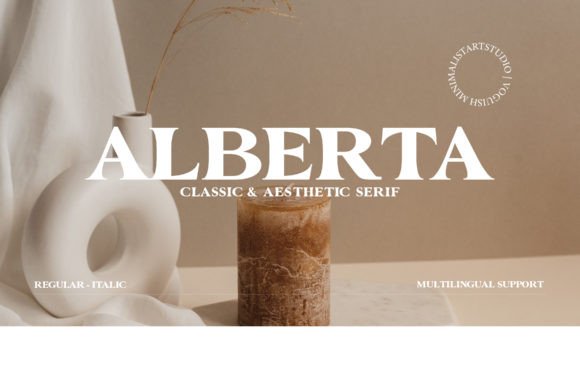
Prepare to be captivated by Alberta, the serif typeface that exudes refinement, chic, and style. This exquisite font family was meticulously crafted by Minimalistartstudio, the masters of typography. With a character set that dances gracefully across the page, Alberta is the perfect dance partner for your elegant design projects.
Imagine your packaging designs, adorned with Alberta's timeless allure. Let its delicate curves and sharp edges whisper the story of your brand, leaving an unforgettable impression on every customer. The world of cosmetics will be your oyster as Alberta transforms your designs into works of art, evoking a sense of luxury and sophistication. From perfumes to fashion, from jewels to posters, Alberta is the versatile chameleon that adapts seamlessly to your creative vision.